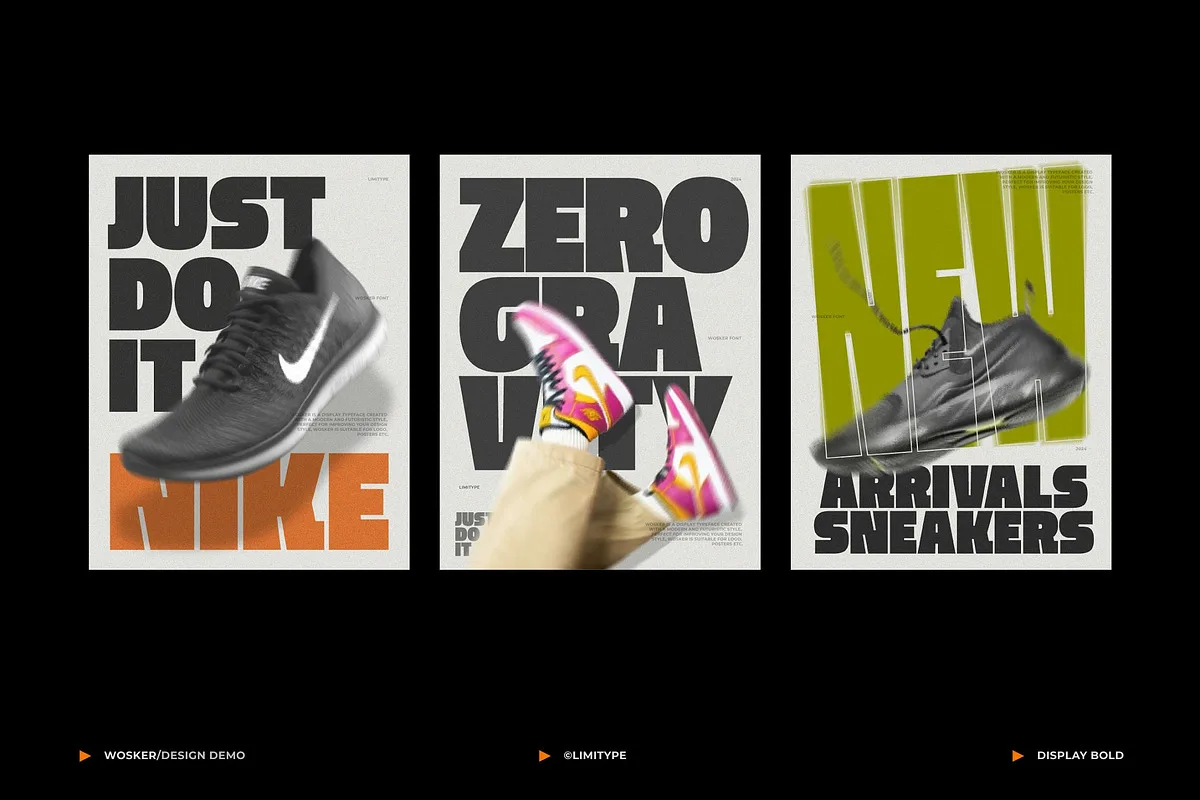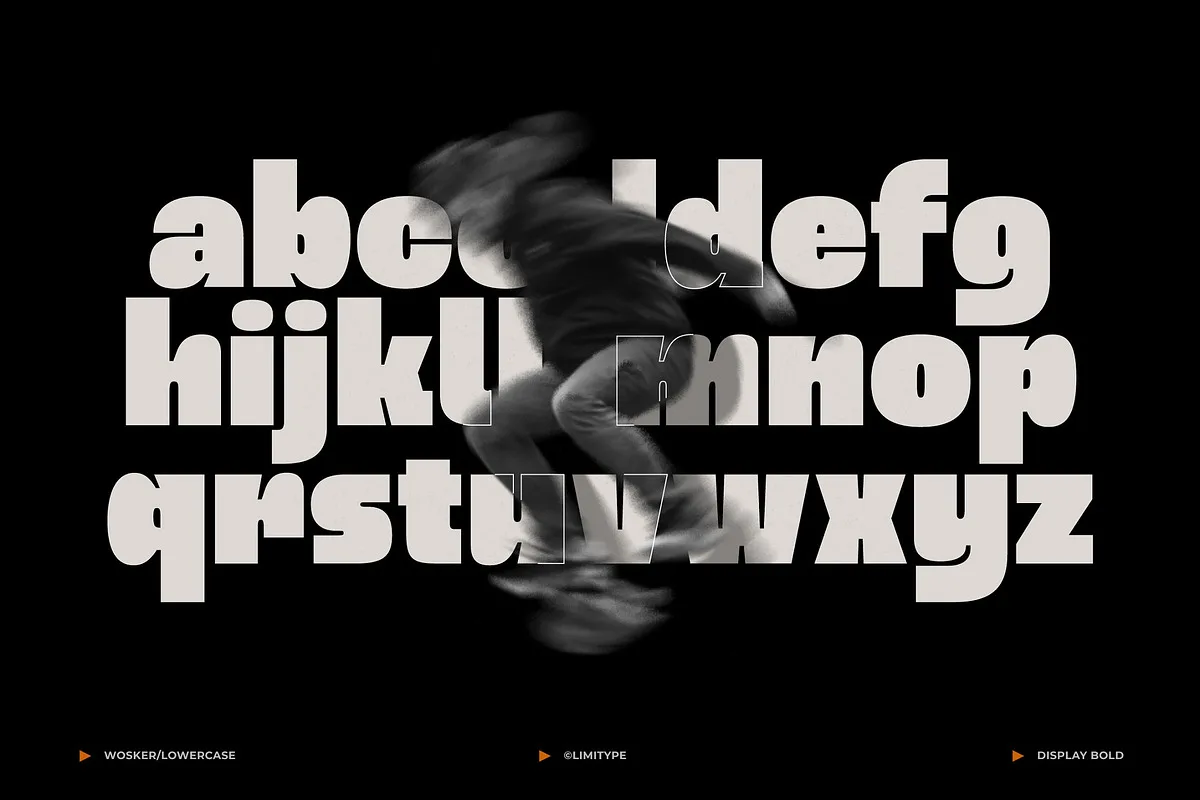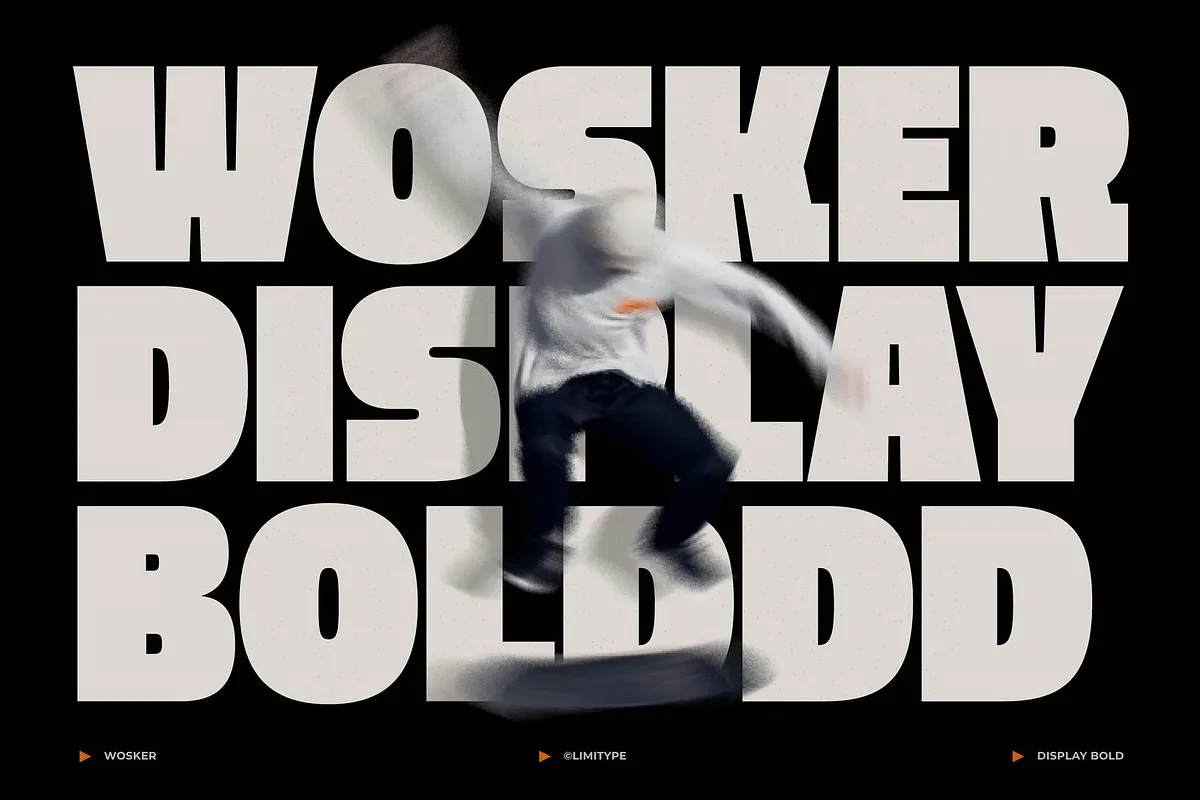
Wosker is a display font with bold and modern characteristics, suitable for your designs that require a strong, firm, clear design but still look modern, friendly and not stiff. It is ready to support your amazing designs.